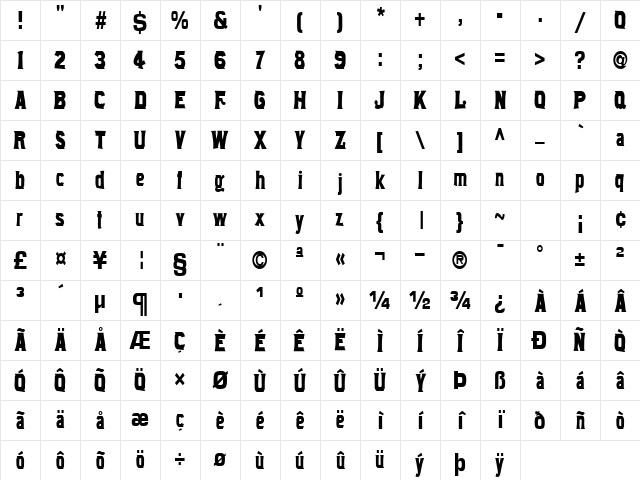
Complete JacksonBold72 Bold glyph index. Displaying only characters natively supported by JacksonBold72 Bold font.
JacksonBold72 is a composed and adaptable typeface that performs quietly and consistently across a wide range of design contexts. Its bold stroke weight gives it real presence on the page.